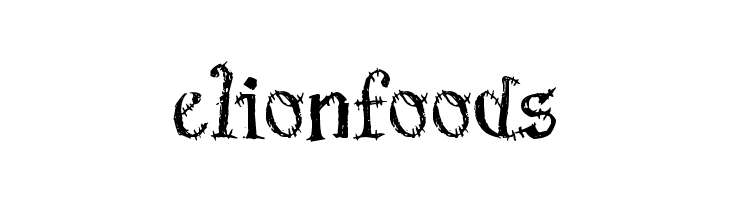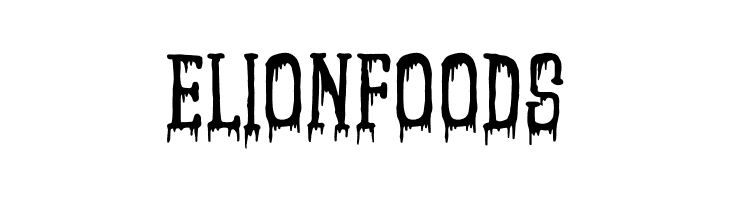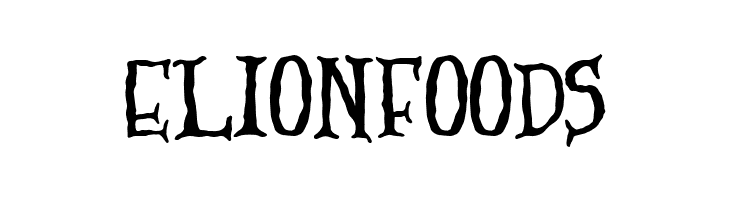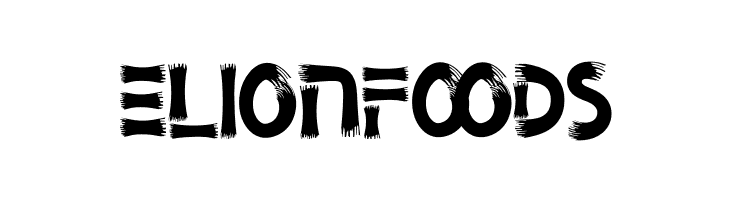
A bold, brushstroke-style font with dynamic and artistic flair.
An edgy, distressed font with thorny, jagged edges.
An edgy, barbed wire-themed decorative font with bold, jagged characters.
A Halloween-themed decorative font with playful and spooky elements.
A jagged, eerie font perfect for horror themes.
A spooky, dripping decorative font ideal for horror themes.